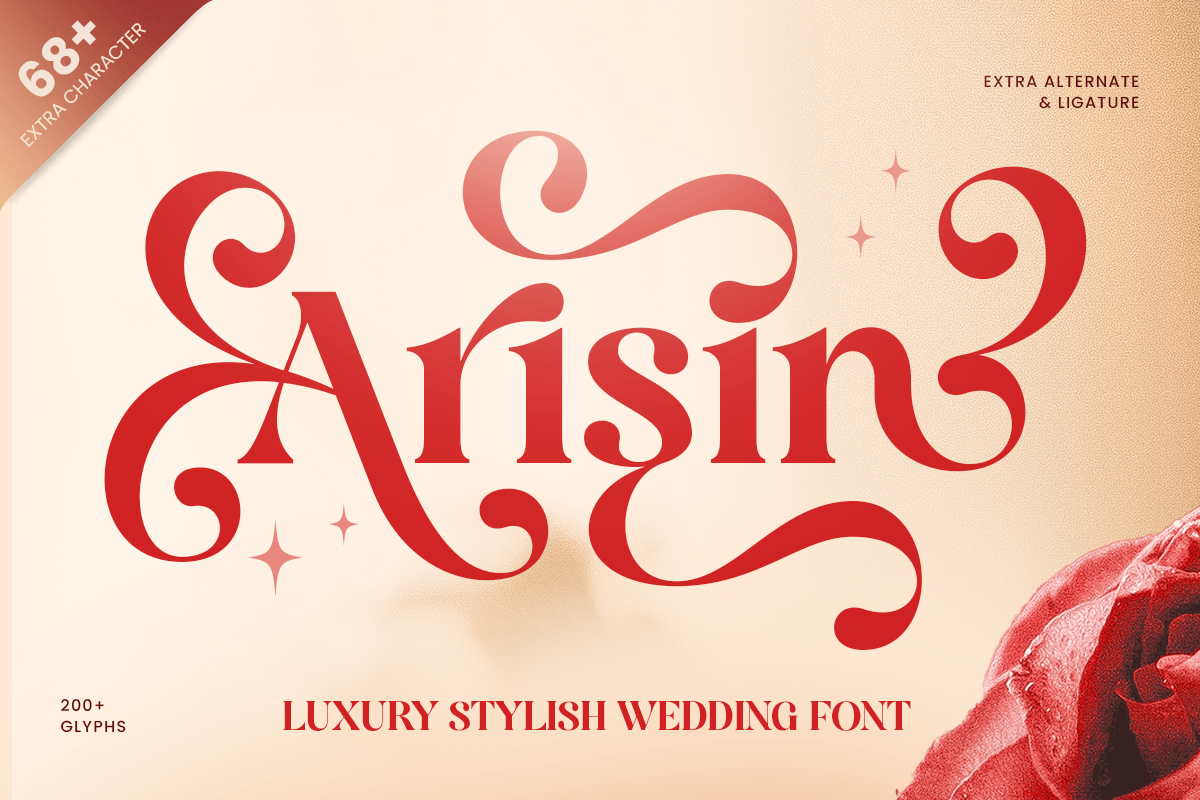
Arisin
-Luxury Stylish Wedding Serif FontArisin - Luxury Stylish Wedding Serif Font
Arisin is a luxury stylish wedding font designed to bring romance, elegance, and refined beauty into every creative project. With graceful letterforms, soft curves, and a premium visual tone, this typeface is perfect for wedding invitations, bridal stationery, elegant branding, luxury packaging, and romantic editorial layouts.
Created for designers who want typography that feels delicate yet sophisticated, Arisin blends modern charm with timeless wedding aesthetics. Its stylish character makes it ideal for save-the-date cards, wedding monograms, boutique logos, beauty branding, fashion editorials, and feminine lifestyle designs.
Whether used for invitation titles, logo marks, packaging labels, or social media graphics, Arisin delivers a polished and romantic impression across both print and digital media.
Arisin – Luxury Stylish Wedding Font Features
Elegant wedding font with stylish luxury character
Perfect for invitations, bridal stationery, logos, and premium branding
Romantic letterforms with refined visual proportions
Ideal for weddings, beauty, fashion, lifestyle, and boutique projects
OpenType features for enhanced typographic styling
Create romantic elegance with Arisin – the perfect luxury wedding font for invitations, stylish branding, and timeless feminine design. ✨💍